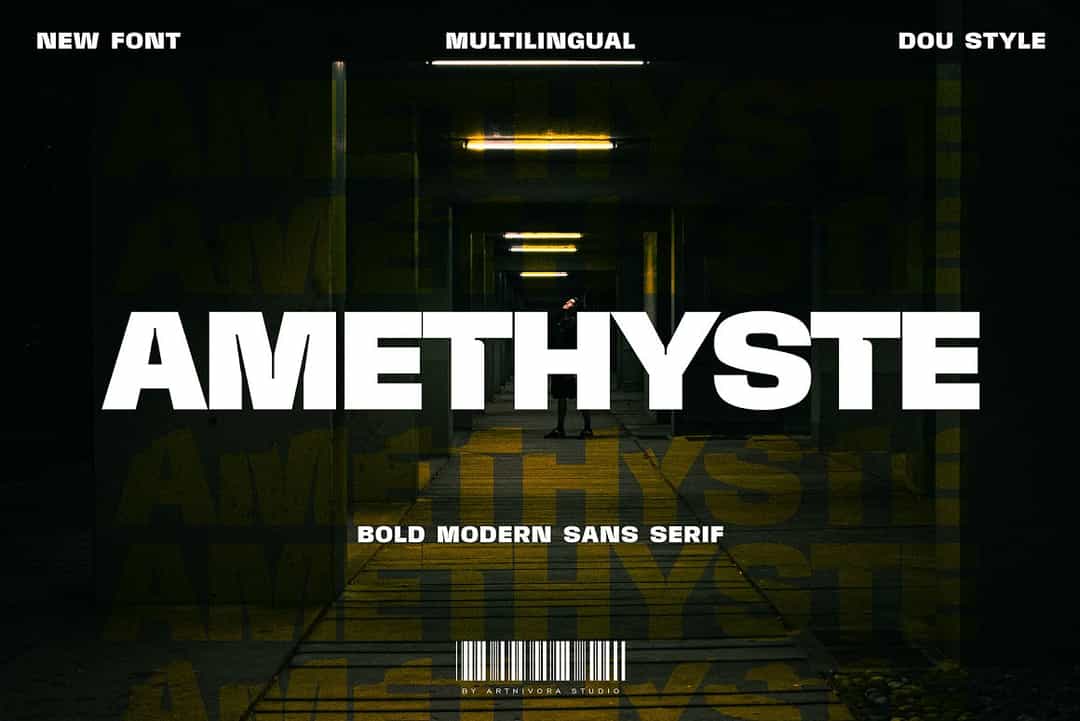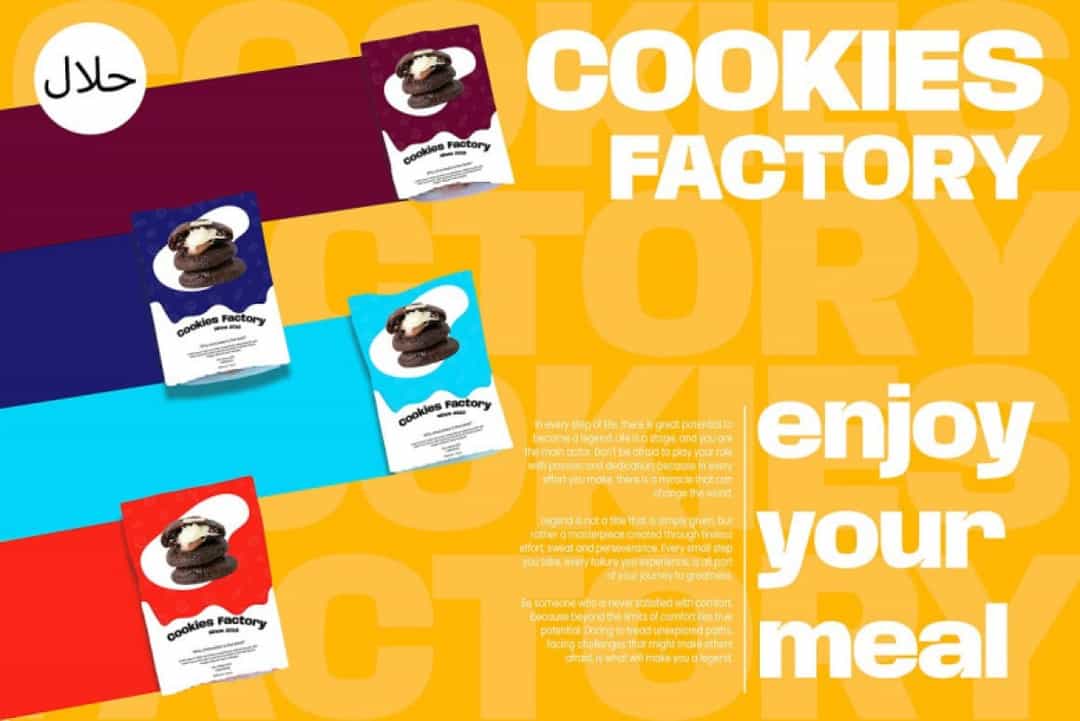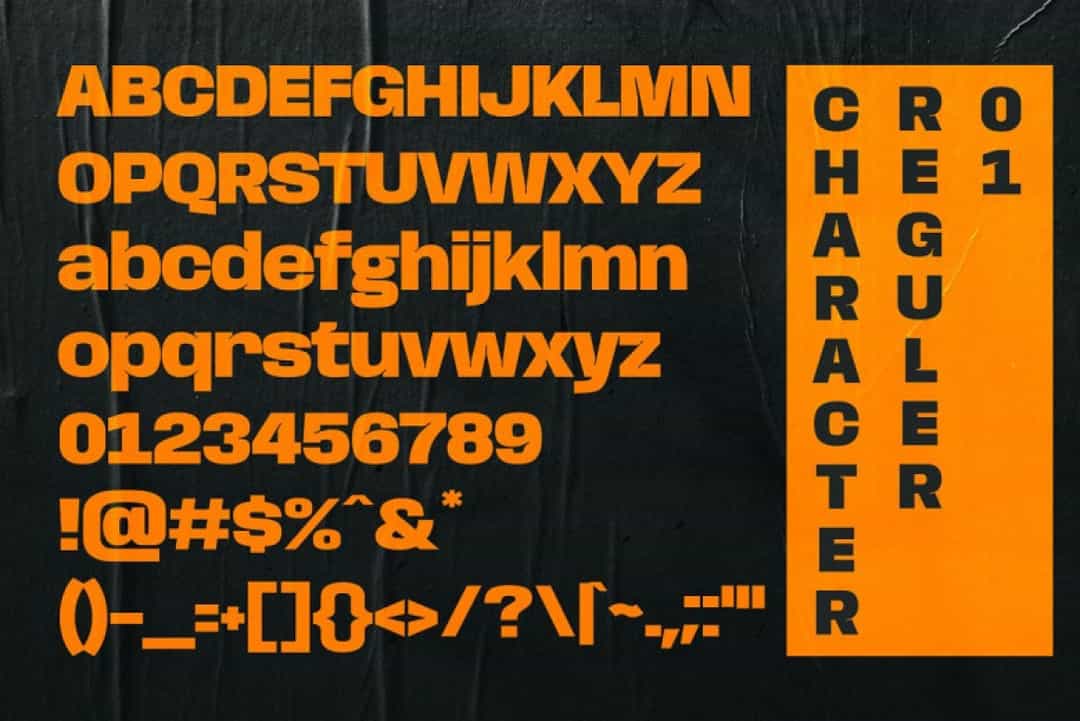
Amethyste is an elegant and striking modern sans serif font designed specifically for logos, magazines, brochures, social media and other applications.